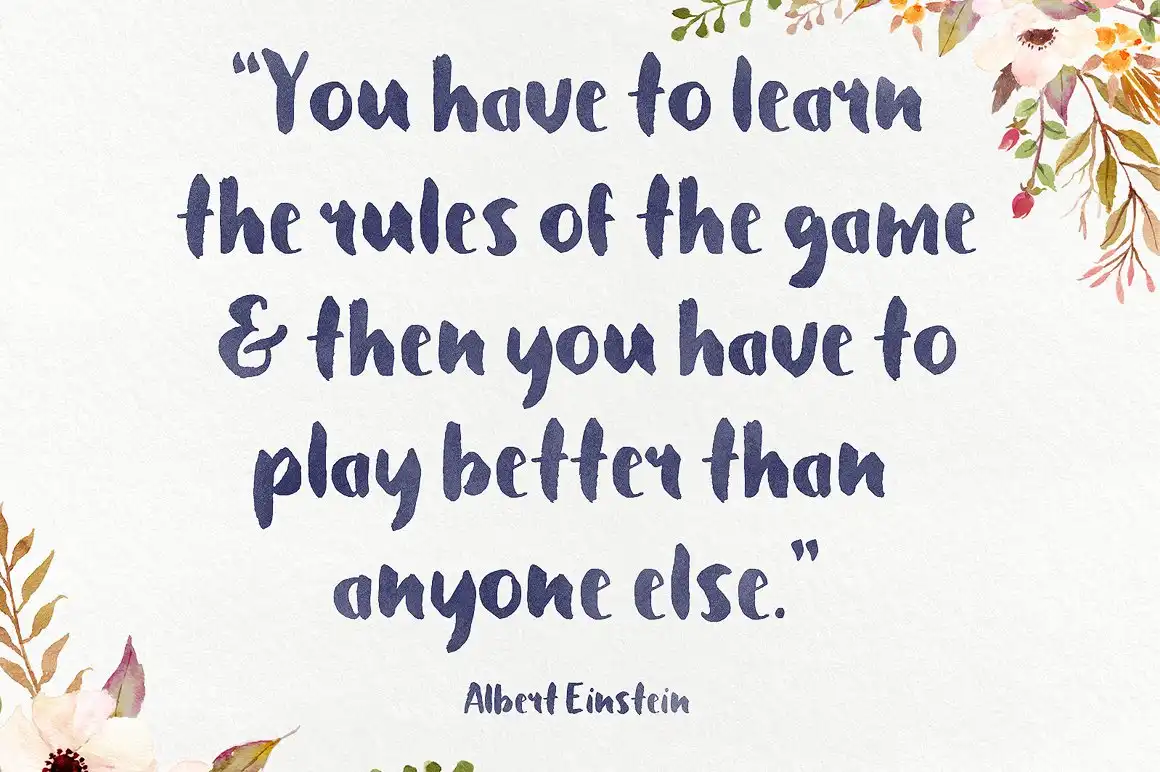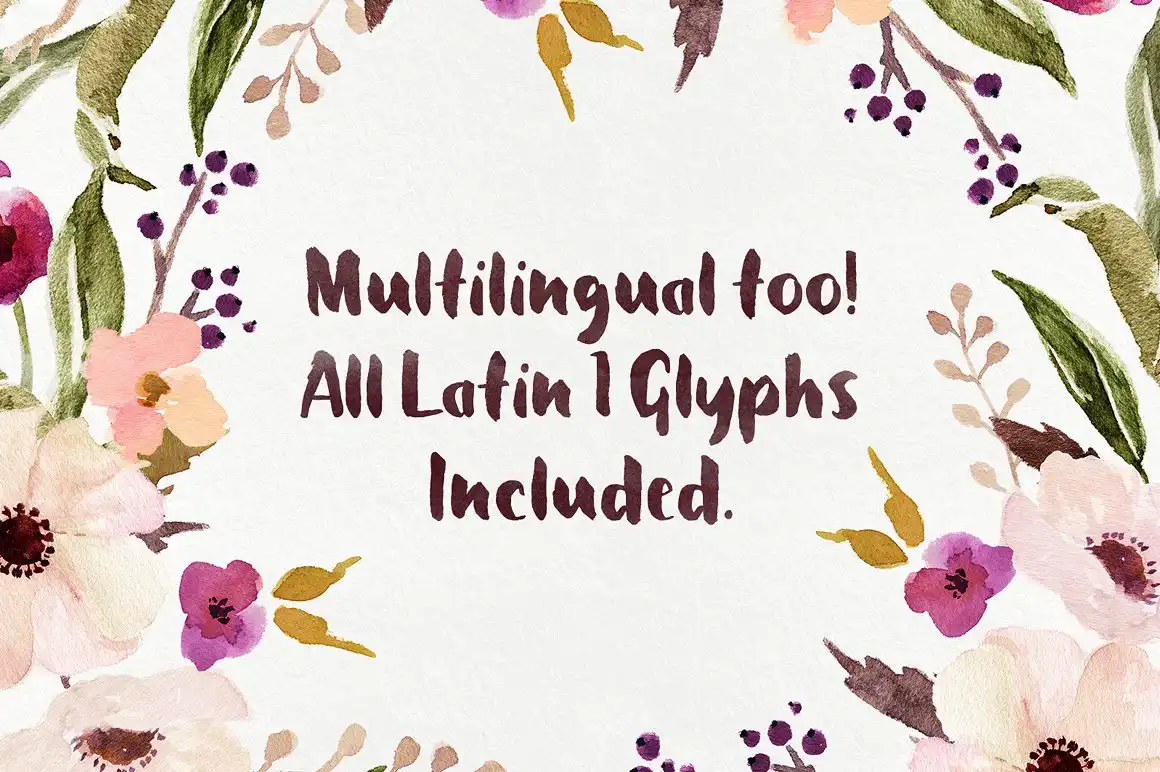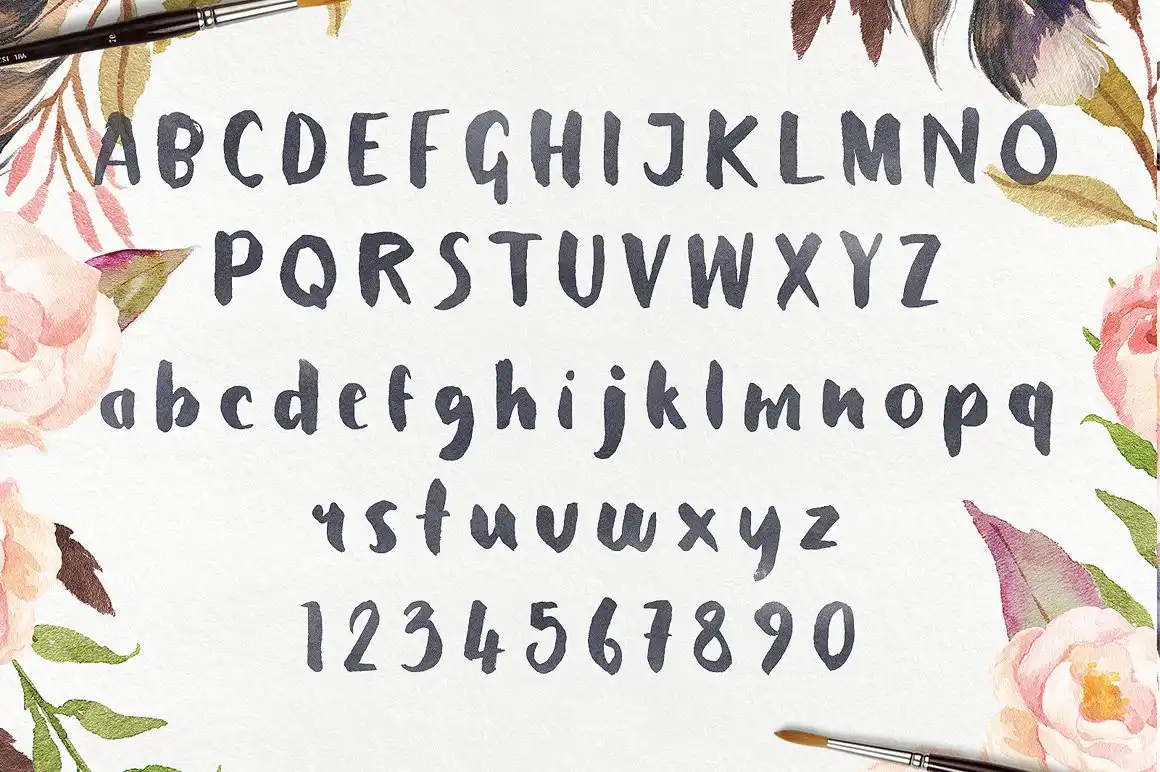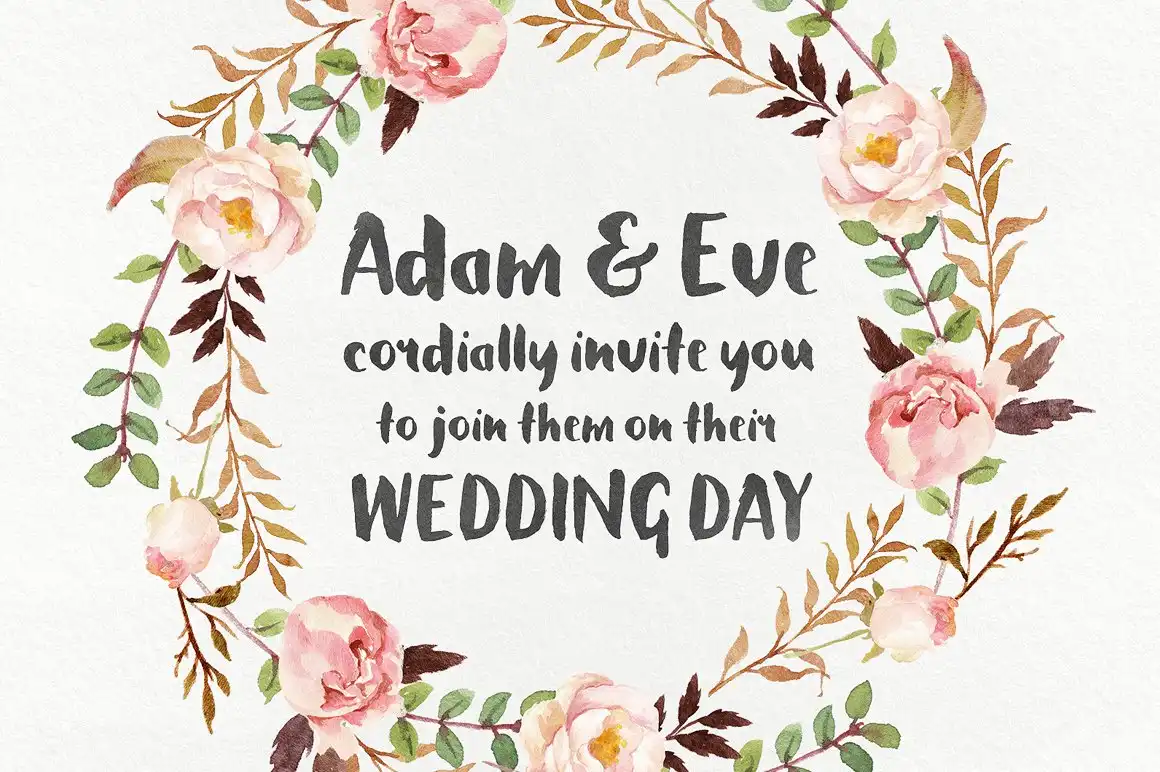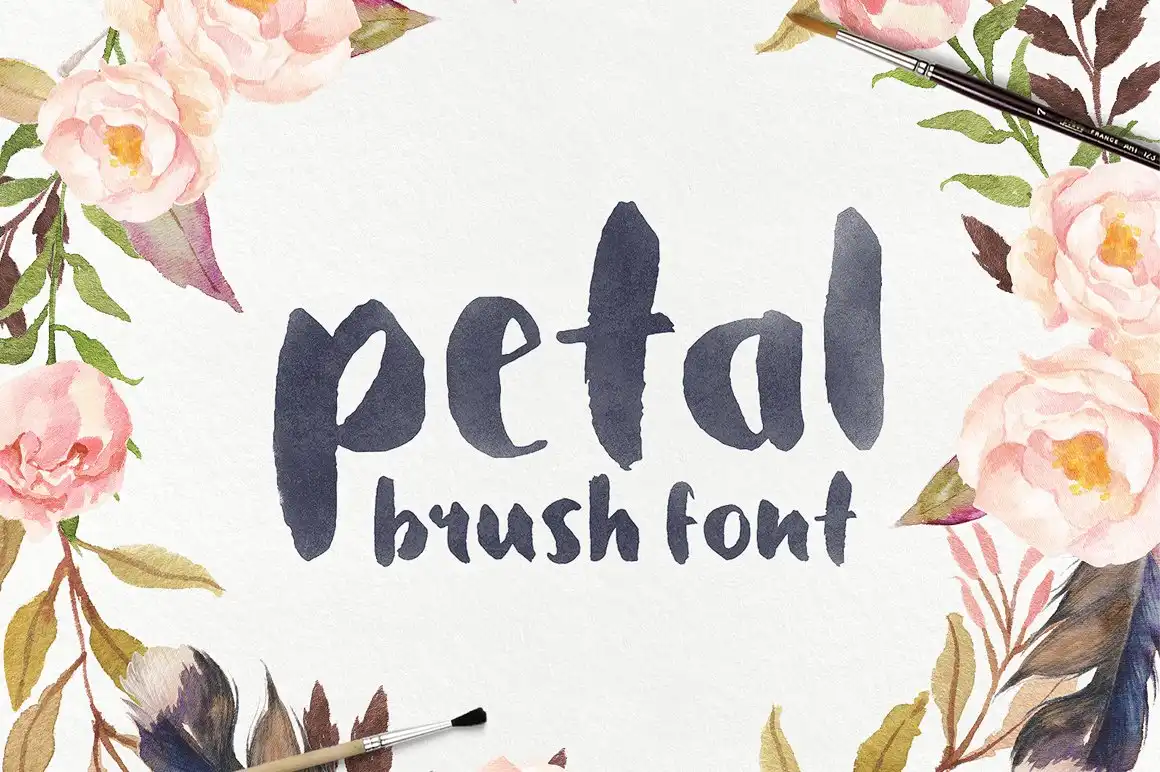
Petal is a gorgeous brush font created with love and care using a Japanese brush pen. This font radiates character and personality, perfectly aligning with contemporary design trends. The unique handcrafted authenticity shines through in every letter, making your designs stand out! ✨
- Handcrafted Design: Each letter reflects the artistry of traditional brush lettering, giving your projects a personal touch.
- Versatile Style: Ideal for invitations, branding, and more, Petal adapts beautifully to various design needs.
This charming brush font is perfect for:
- Graphic designers looking to add a unique flair to their projects
- Wedding planners creating beautiful invitations
- Artists wanting to incorporate a handwritten style into their work